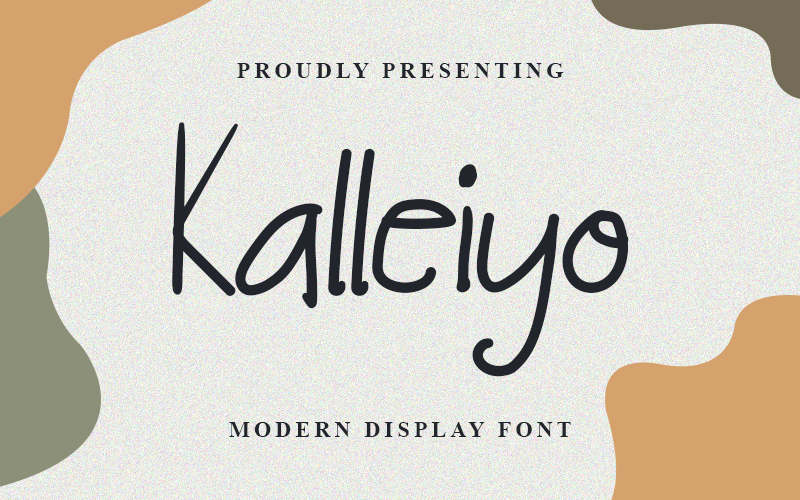
Preview and download Kalleiyo Font. Created by Denny Sutanto in Script Handwritten styles with Free for personal use license.
Font name: | Kalleiyo |
Author: | Denny Sutanto |
Kalleiyo Font is a cute handrawn display font with movement and grace. This Font suits for various vector designs, printing such as digital wedding invitations, blogs, online shops, social media, while printing can be used in the field of product clothing, accessories, bags, pins, logos, business cards, watermarks and many others. What�s Included : � OTF & TTF � Works on PC & Mac � Easy to use ( Installations ) � Easy Convert to webfont � Compabilty Windows, Apple, Linux, Cricut, Silhouette and Other cutting machines NOTE: This Demo is for PERSONAL USE ONLY! But any donation are very appreciated. PayPal Account for Donations: https://lnkd.in/fPg-VuA Link for Donations via PayPal: paypal.me/dennysutanto93 link to purchase full version and commercial license: - Creative Fabrica: https://lnkd.in/gyVWriJ Please visit our store for more great fonts: - https://lnkd.in/gZAu7qx and follow my Instagram for update: https://lnkd.in/fGNU4rs Thank You |